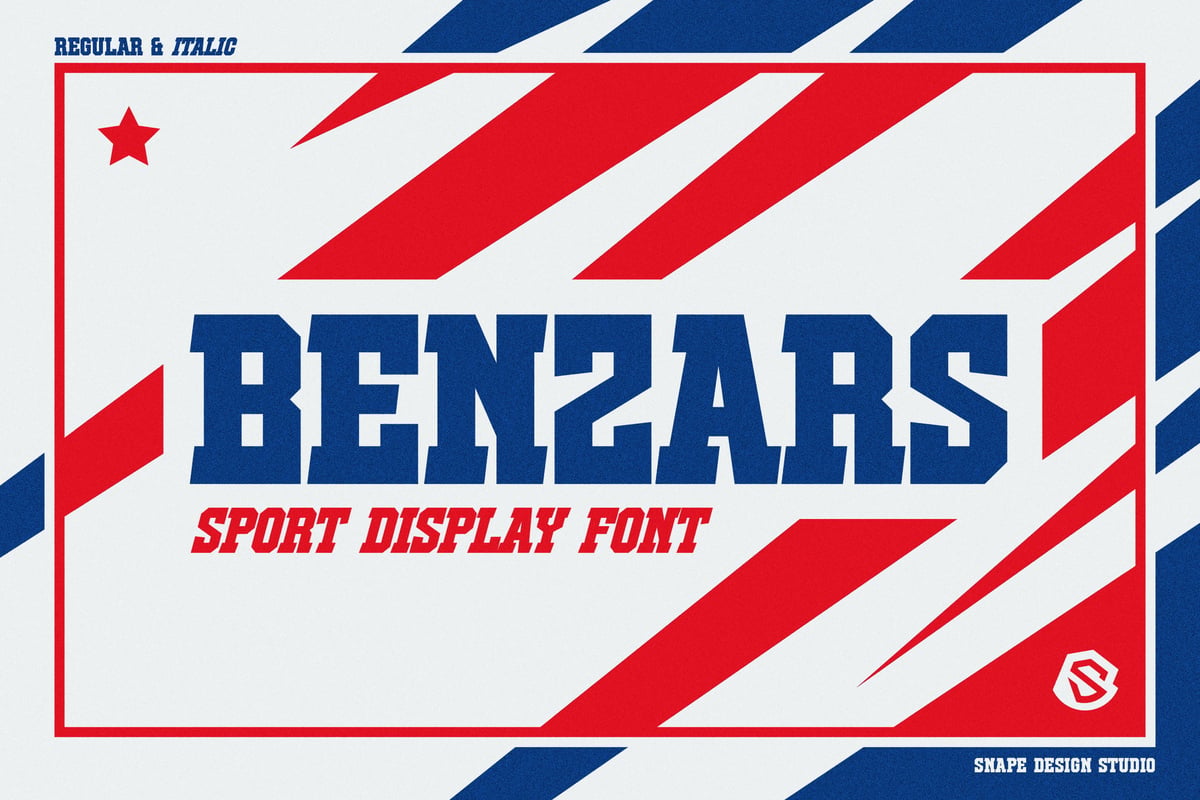
Benzars - Sport Display Font
Elevate your boldest projects with Benzars, the ultimate sport font engineered for high-impact design. This dynamic and energetic typeface delivers the competitive edge your branding, posters, and apparel designs demand. Benzars combines athletic power with typographic precision to help your projects dominate the field. Perfect for sports branding, fitness campaigns, team merchandise, and any design that needs to pack a punch. Whether you're creating logos, promotional materials, or bold headlin...